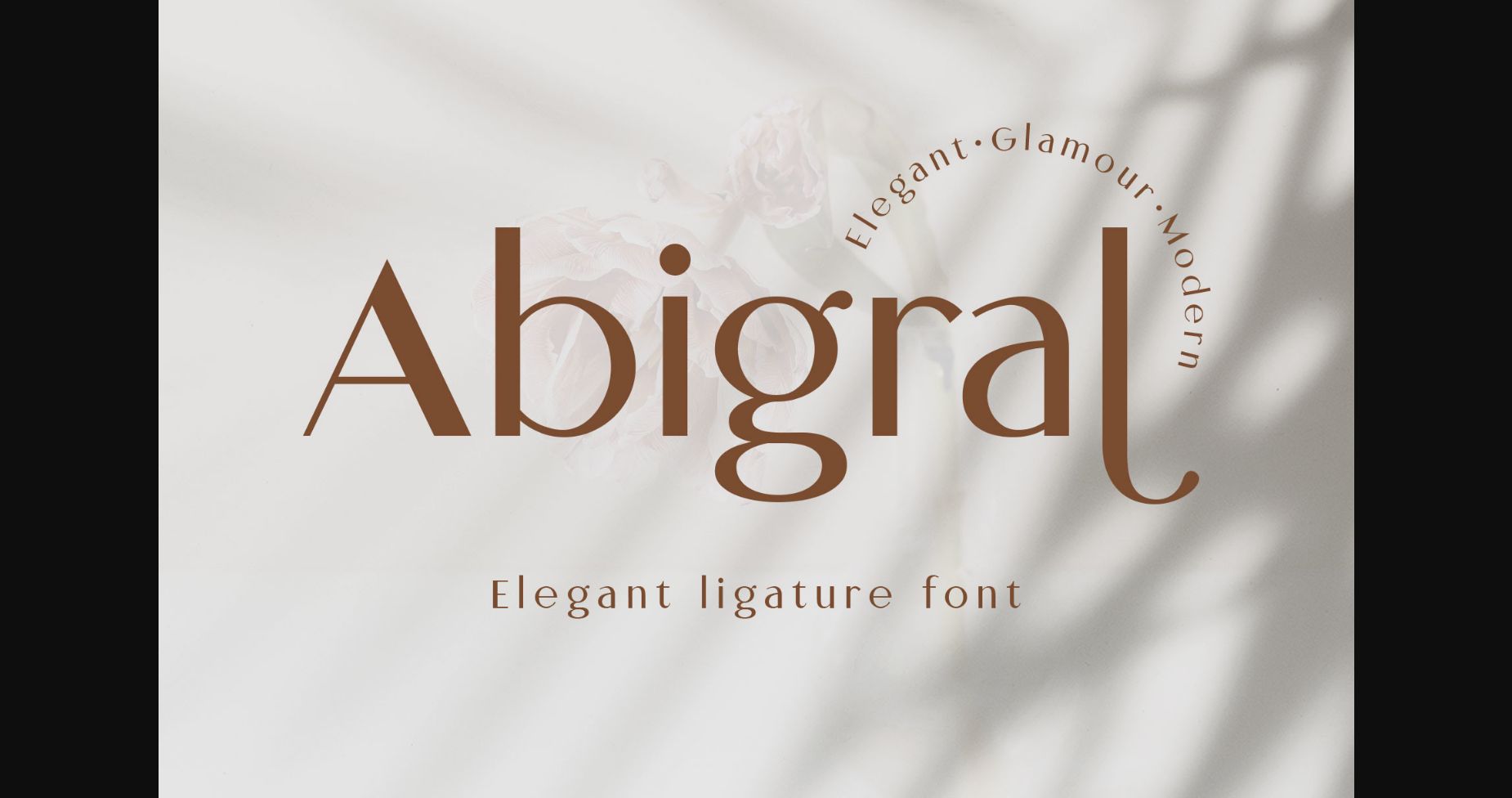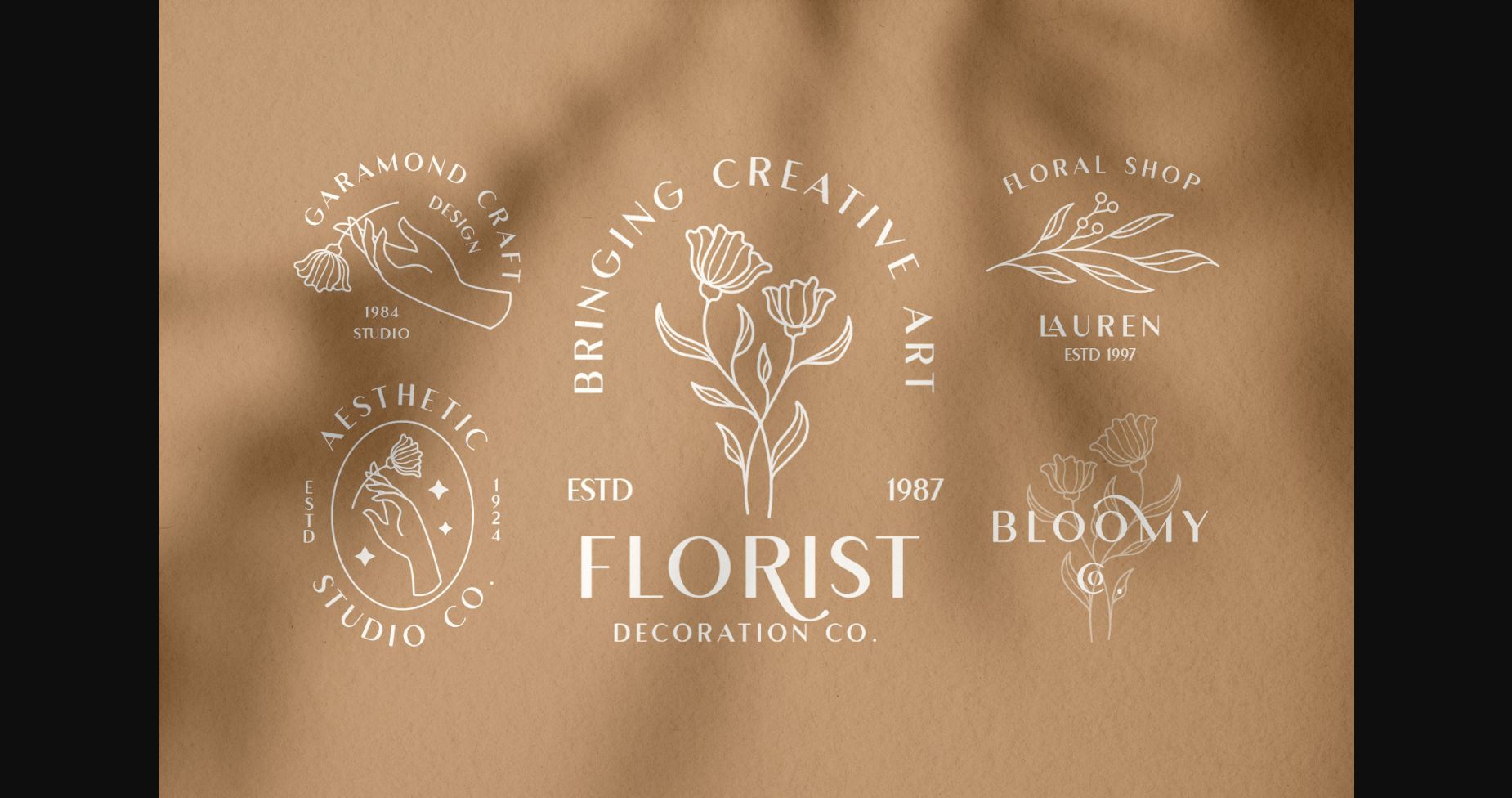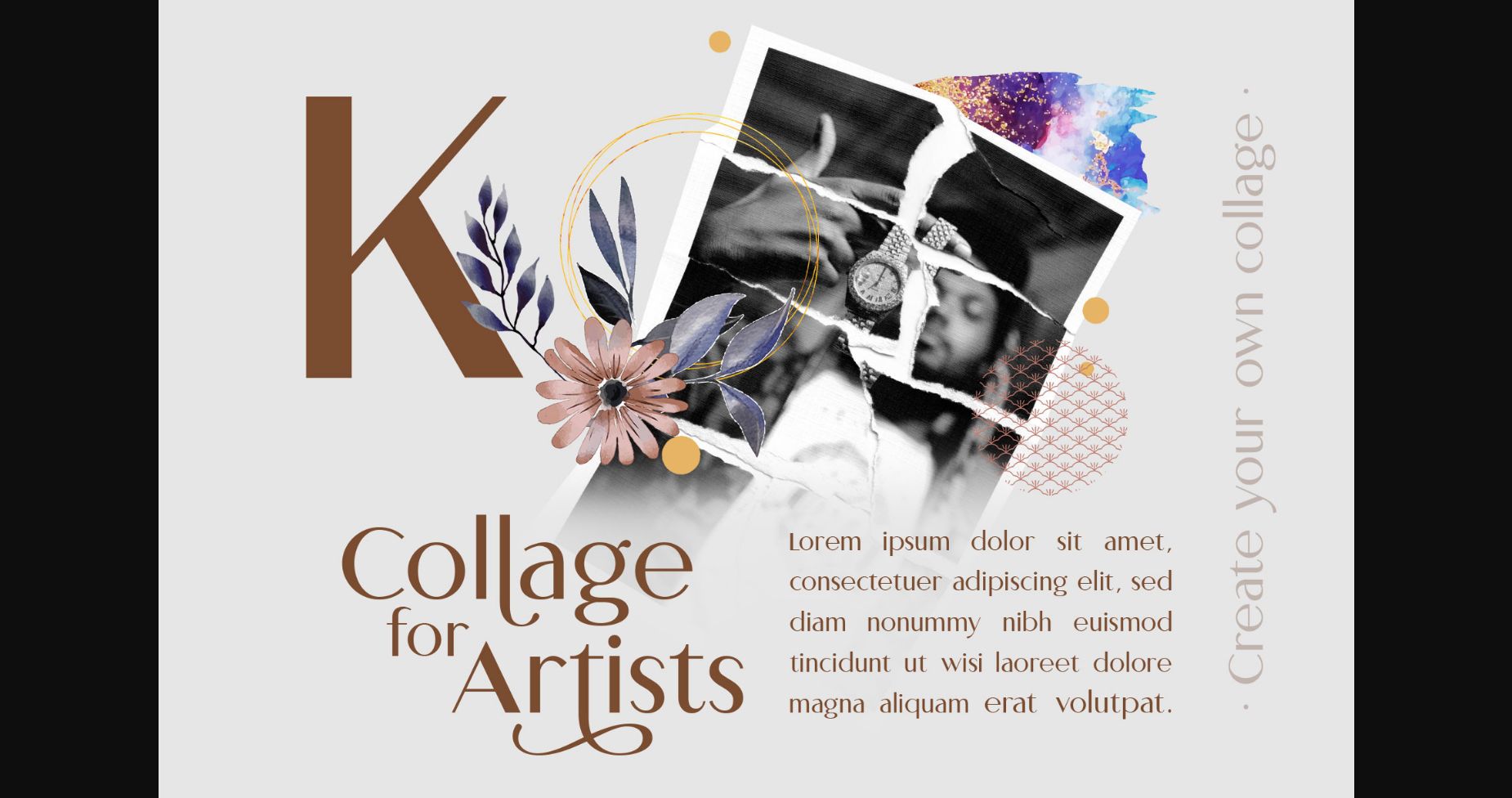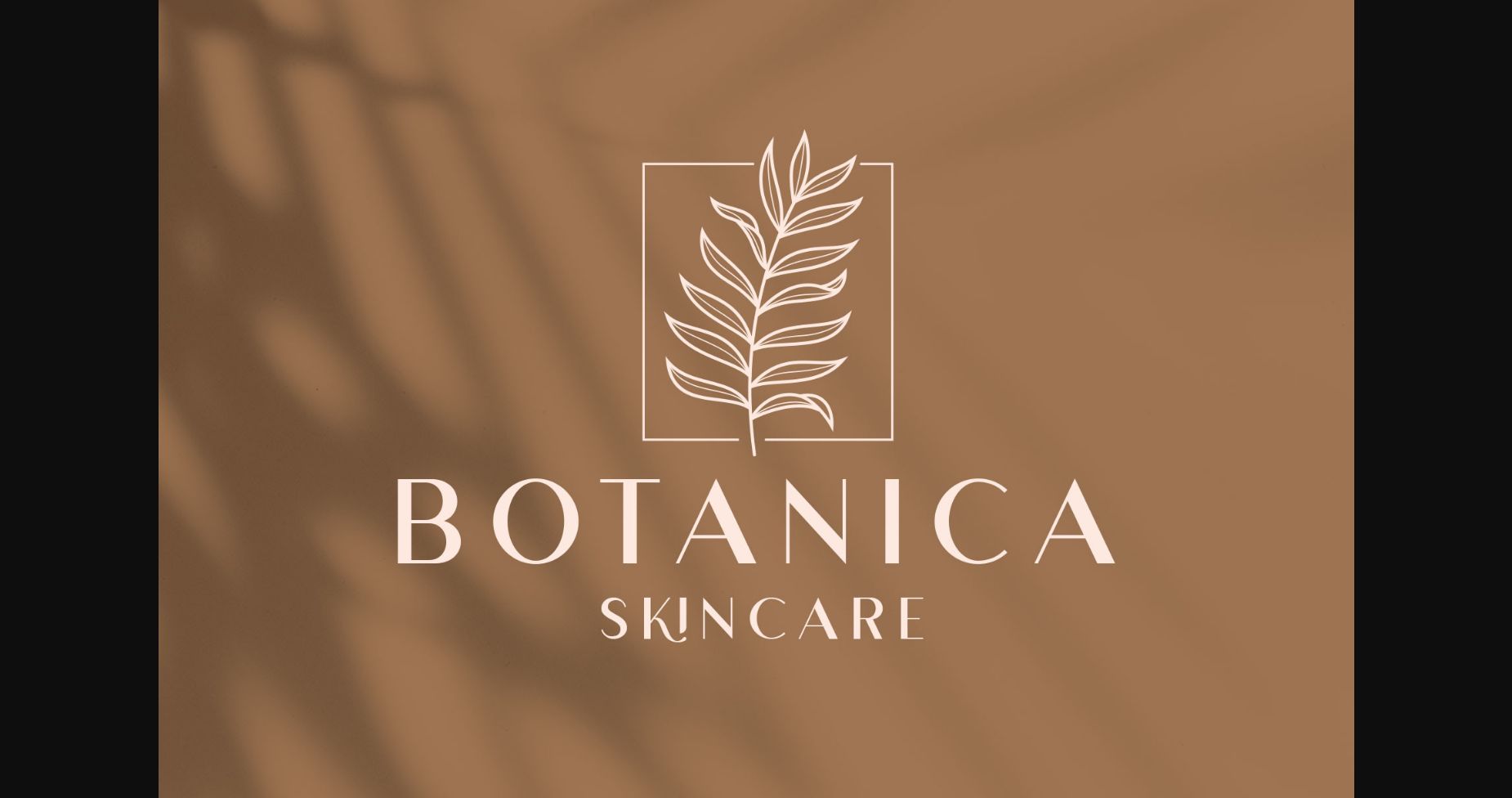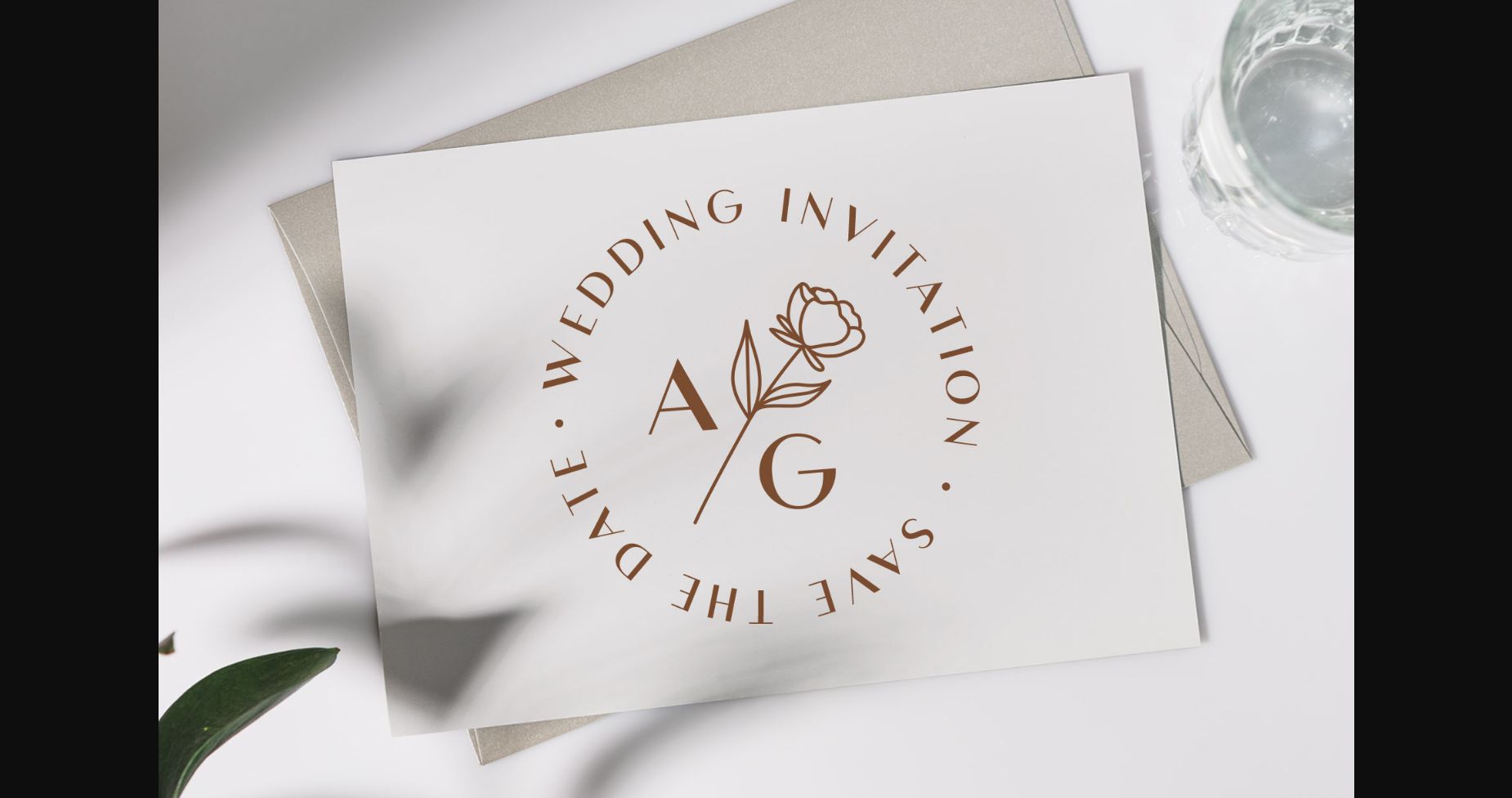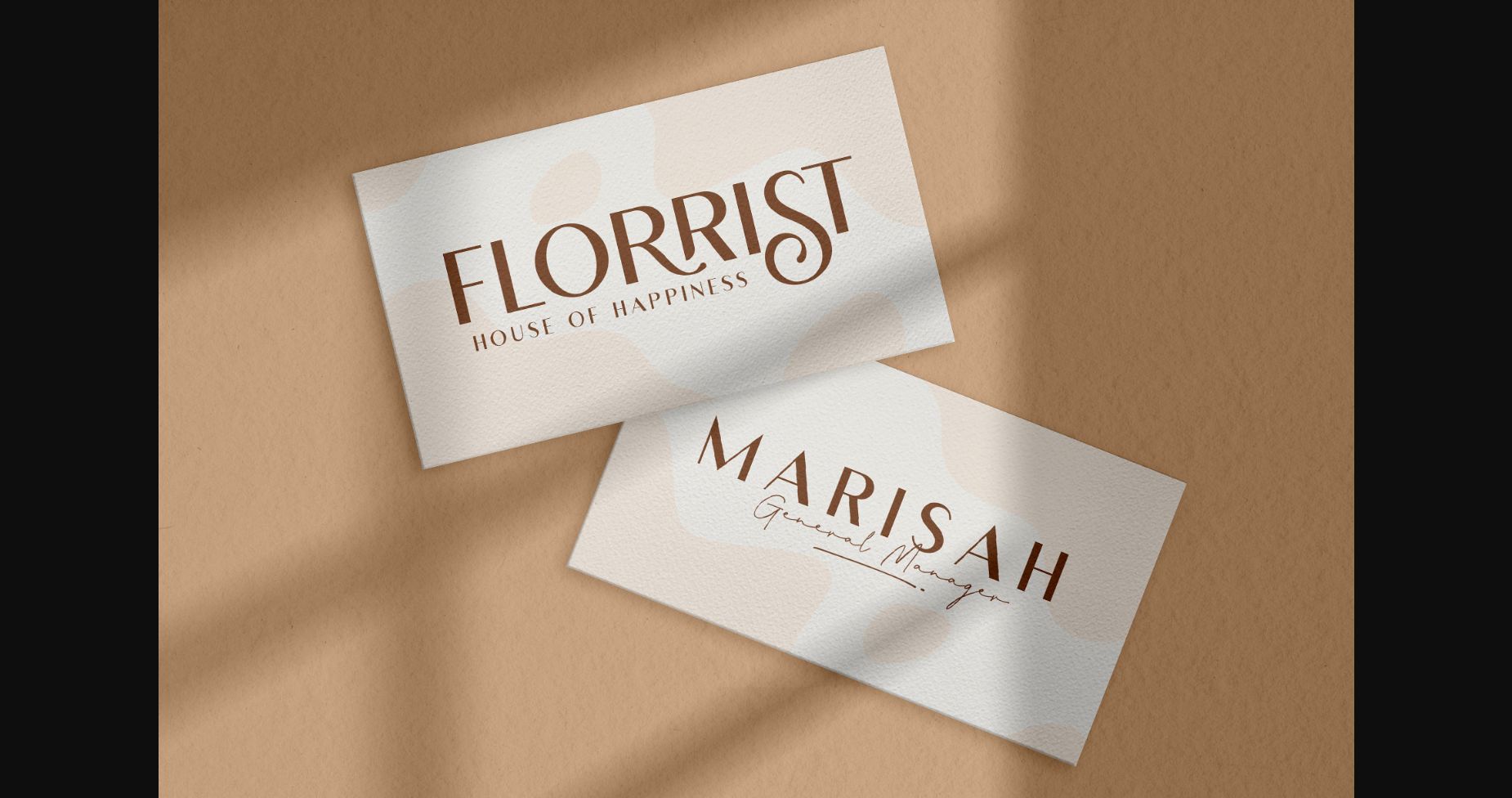
Abigral Font
About Abigral Font
Abigral is a minimalist sans serif font created with geometric shapes and fancy double-strokes letterforms. Abigail is designed in normal letterspacing that looks versatile to be used as a display, logotype, or body text.